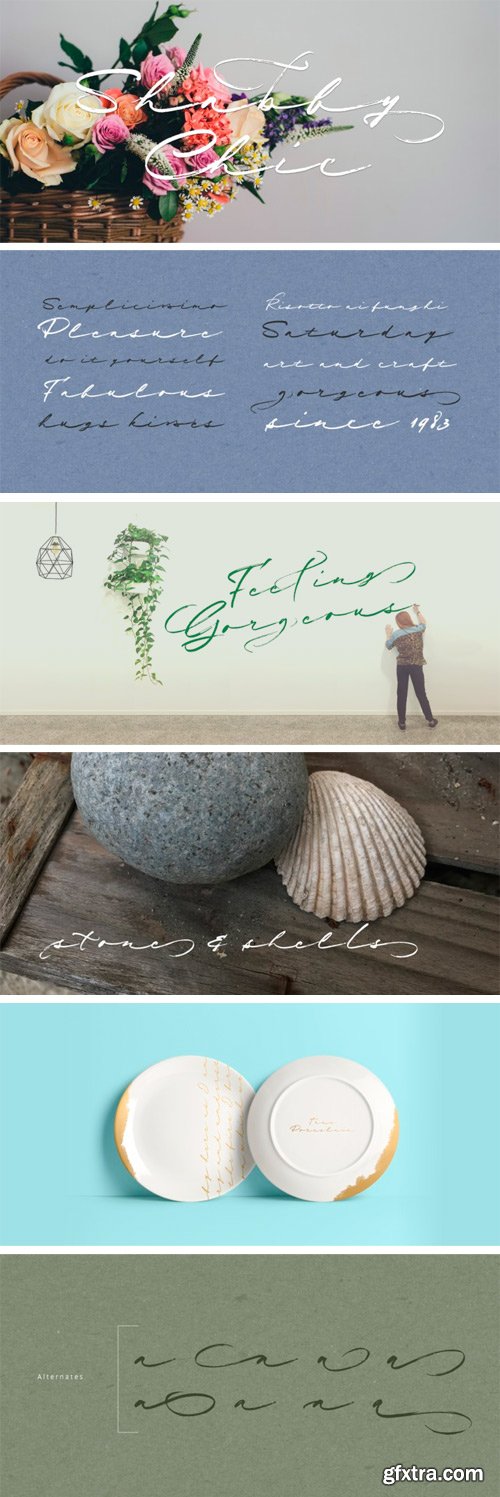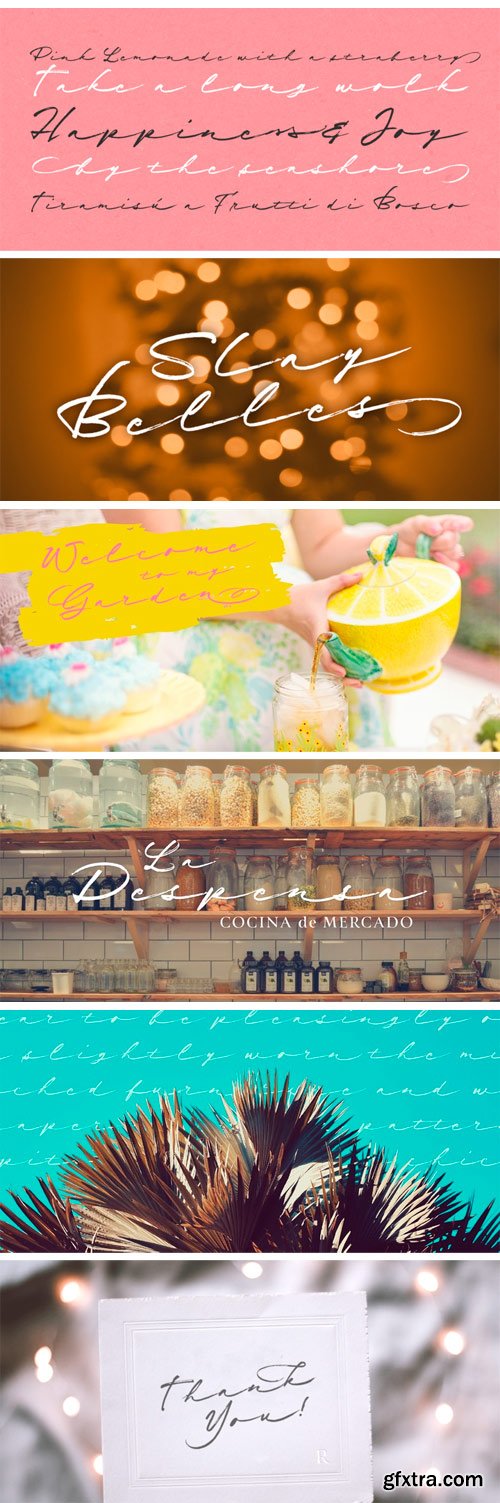
The softening of edges in the Shabby Chic aesthetic are markers of age, warmth, authenticity and use. The charming style popular with Bohemians and artisans has a soft, relaxed and romantic feeling.
Resistenza used their highly successful monolinear script Mina as the basis to explore how to recreate the spirit and charm of the Shabby Chic design style in a typeface. Drawn by hand with dry brush pen for rustic warmth and distressed edges. Shabby Chic has long connections between letters creating a visual rhythm that echoes the form and pace of gentle waves lapping at a seashore. Each character has an expressive touch, OpenType enabled alternates, for character combinations, initial and final forms allow effortless customisation, flair and a realistic handwritten-sign appearance. (The alternates are accessible by turning on 'Stylistic Alternates' and 'Ligatures' buttons on in Photoshop's Character panel, or via any software with a glyphs panel, e.g. Adobe, Quark...etc) Introduce some rustic romance to your font library. Shabby Chic is perfect for cards, invitations, labels and logos where you want to convey intimate, friendly, warm and genuine sentiment.